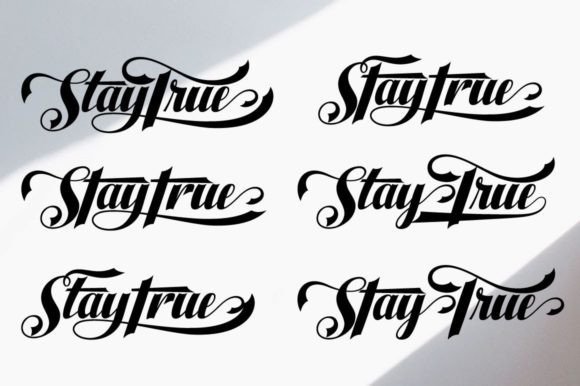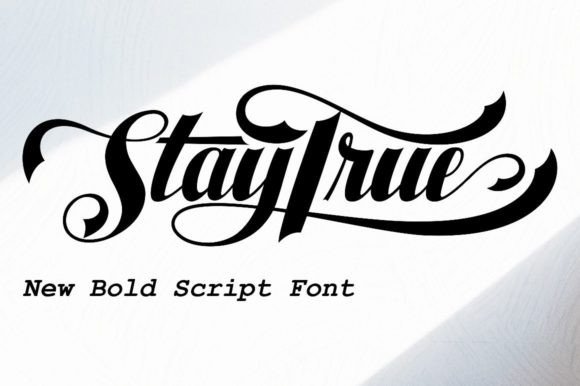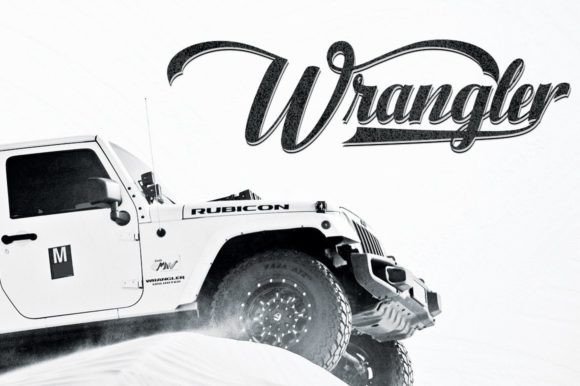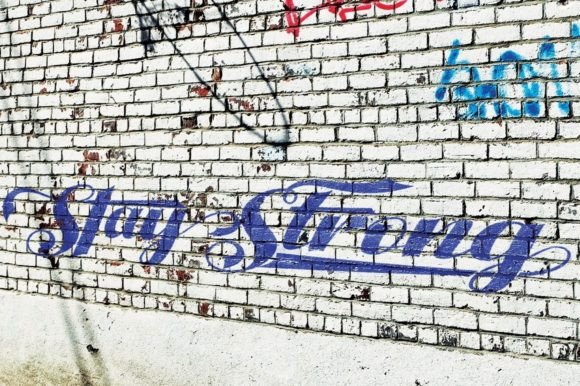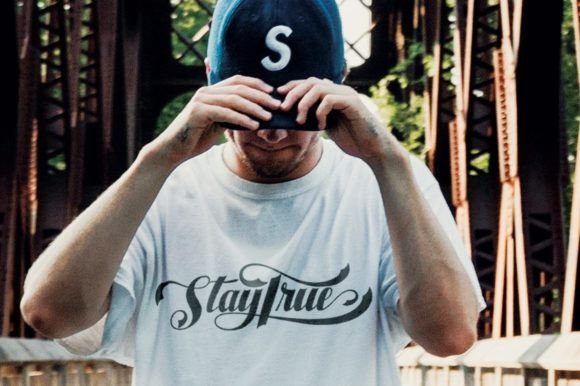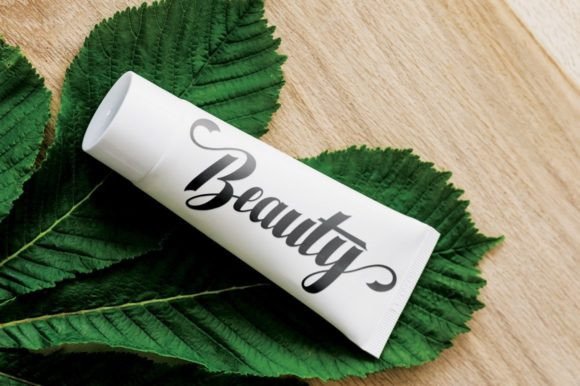
Staytrue Font
About Staytrue Font
“Dona Angelisa” is an impressive modern signature font designed to elevate a wide range of creative projects. Its contemporary and elegant style makes it suitable for diverse applications, including logos, invitations, stationery, wedding designs, social media posts, advertising, product packaging, product design, labels, photography, watermarks, special events, and more.
The font’s sleek and sophisticated letterforms create a sense of refinement and class, making it a standout choice for projects that require a touch of elegance. Whether you’re crafting a stylish logo for a high-end brand or designing elegant wedding invitations, “Dona Angelisa” adds a sense of modernity and sophistication to your designs.
One of the notable features of “Dona Angelisa” is its PUA encoding, granting you access to a variety of glyphs and swashes with ease. This flexibility allows you to customize your text, enabling you to create unique and visually appealing compositions tailored to your specific needs. With access to a range of artistic elements, you can enhance the creativity and elegance of your designs.
Incorporating “Dona Angelisa” into your creative projects empowers you to infuse them with a sense of modern sophistication. Its contemporary signature style adds a personalized and luxurious touch, making your text visually striking and memorable. Whether you’re designing a sleek product label or elegant event invitations, “Dona Angelisa” ensures that your creative endeavors leave a lasting impression.
Embrace the elegance of “Dona Angelisa,” and let it enhance the visual appeal of your projects. Its modern signature design, coupled with its accessible glyphs and swashes, provides you with the tools to create stunning and personalized designs, ensuring that your creative endeavors stand out with sophistication and style.